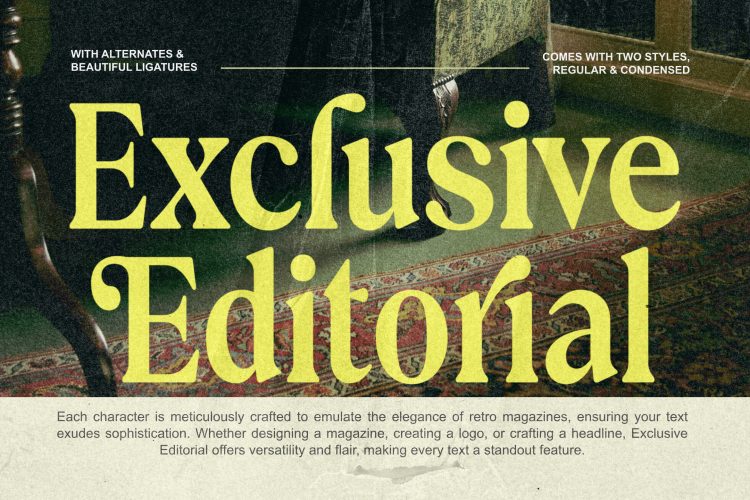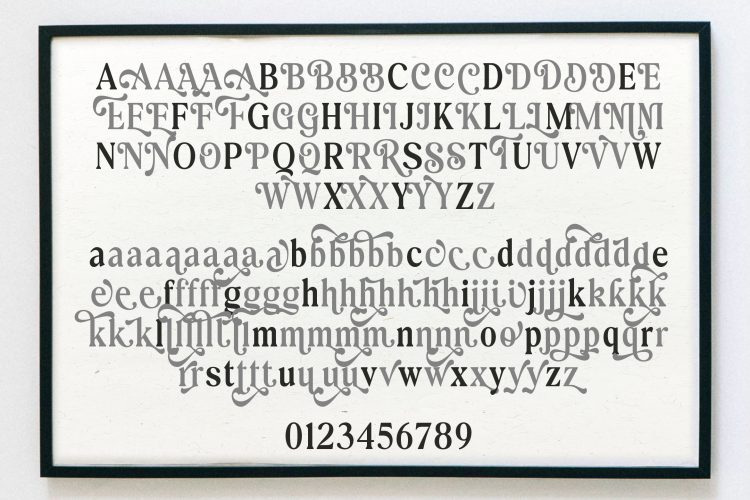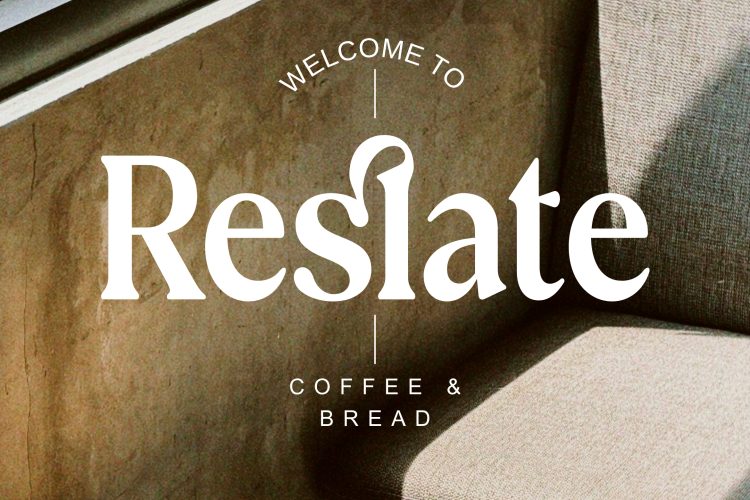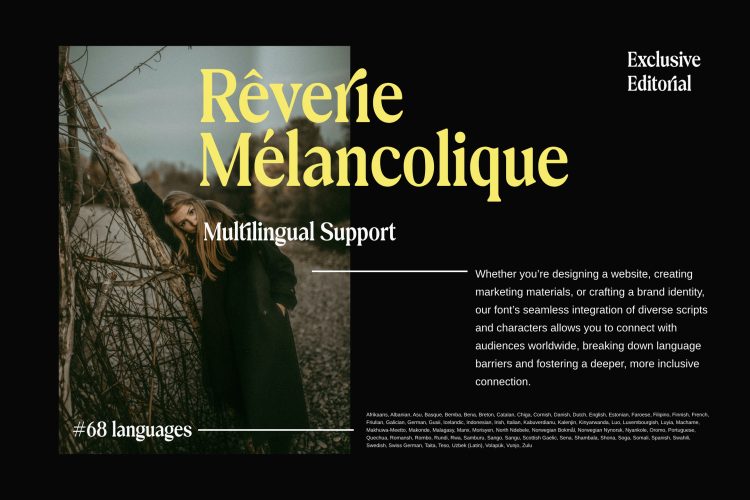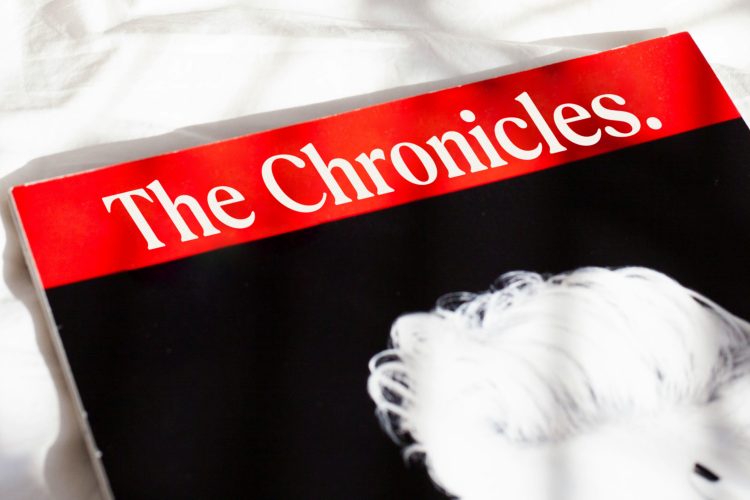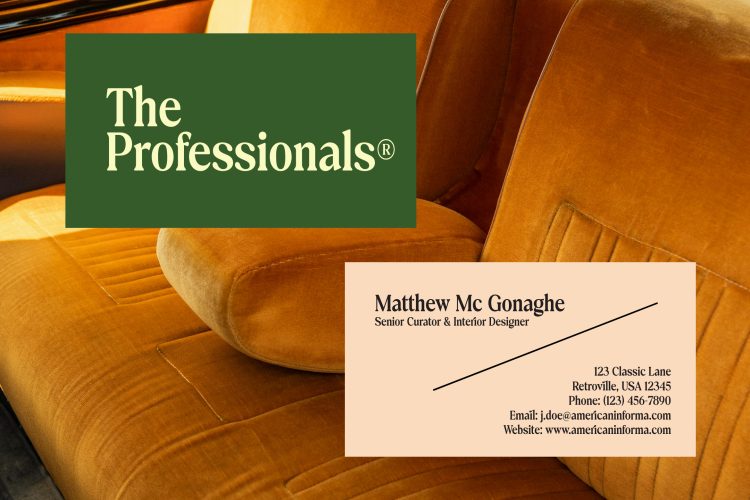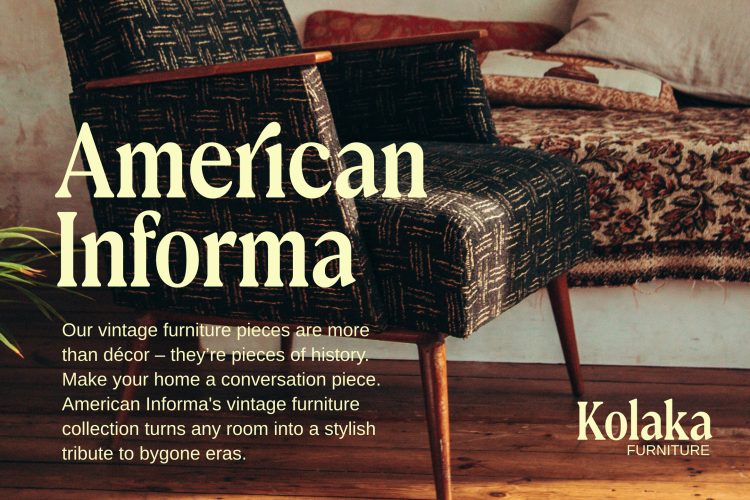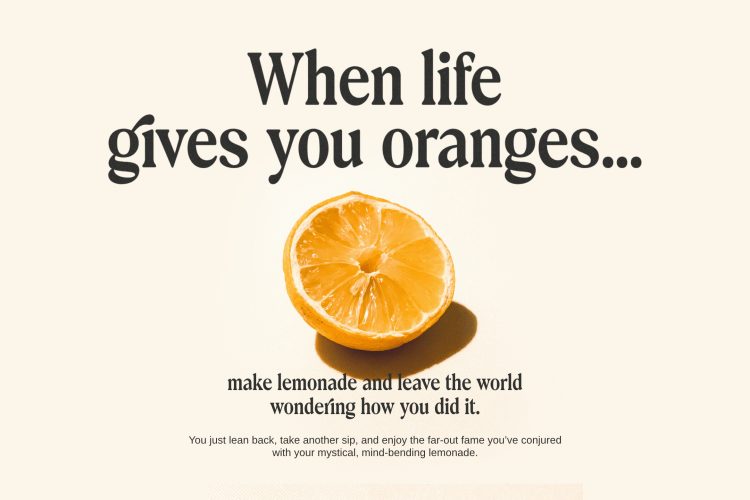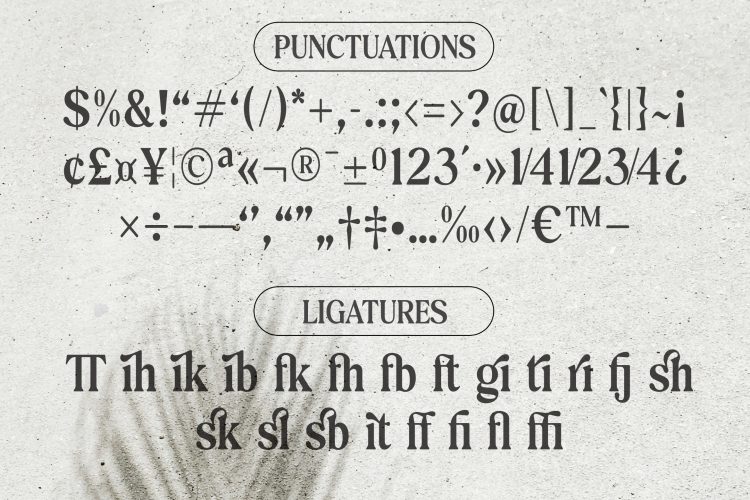
Introducing you my newest font creation called Exclusive Editorial.
Exclusive Editorial is a serif typeface with a retro style that will take you to the 80s. also one that will definitely make your design stand out. A great combination of regular and Condensed styles that looks great in both large and small sizes. It is also equipped with alternatives and fasteners to give an elegant impression while adding a cheerful impression. Exclusive Editorial Font is a great choice especially in pop and retro art themes and other projects.
- Alternates and Ligatures